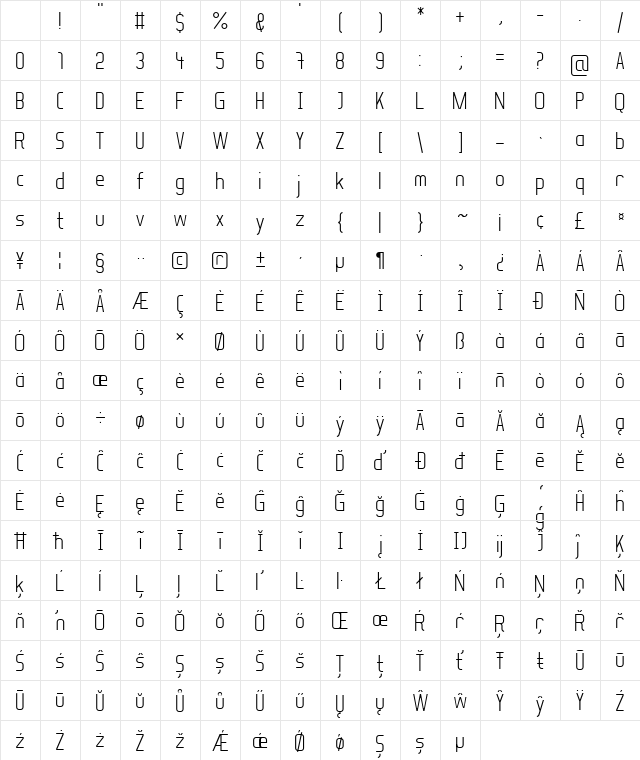
Complete Soul Lotion Light glyph index. Displaying only characters natively supported by Soul Lotion Light font.
Soul Lotion is a composed and adaptable typeface that performs quietly and consistently across a wide range of design contexts. Its slender proportions lend an understated elegance to any composition.